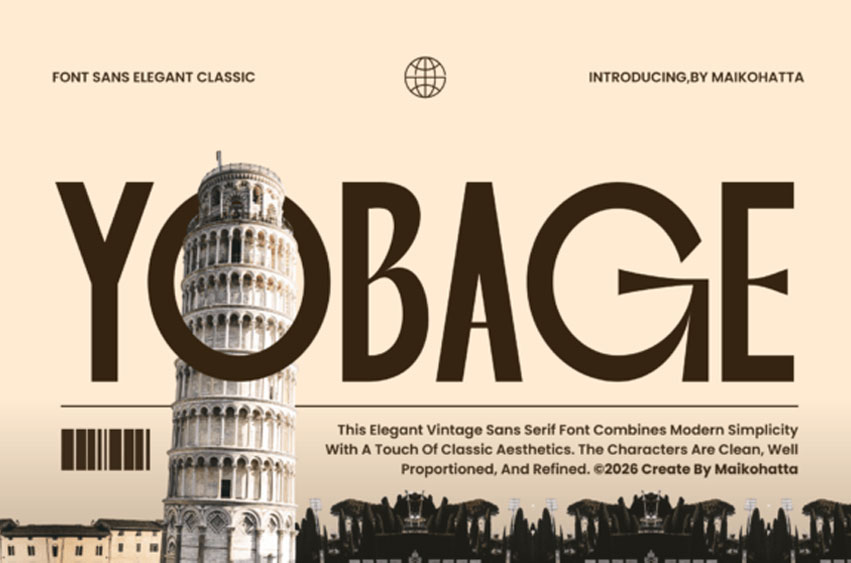
Yobage Font
Yobage Font is an elegant classic sans serif font that blends modern simplicity with timeless vintage aesthetics.
Designed with clean shapes and well-balanced proportions, this font delivers a refined and professional look across various design needs.
This refined Yobage typeface features clean, well-proportioned characters with subtle, sharp terminals that evoke a sense of high-end editorial luxury. It is an impeccable choice for fashion branding, architectural portfolios, and luxury travel layouts where a “quiet luxury” vibe is essential. The Yobage font excels in large display sizes, where its balanced geometry and airy letter-spacing can truly shine. Pair it with a minimalist serif for a complex, multi-layered brand identity that feels both historical and forward-thinking.
Perfect for branding, editorial layouts, logos, packaging, posters, fashion designs, magazines, and social media graphics, Yobage brings a sophisticated yet versatile character to your typography.
Its clear readability and stylish presence make it suitable for both display and text usage, giving designers flexibility while maintaining a visual appeal.